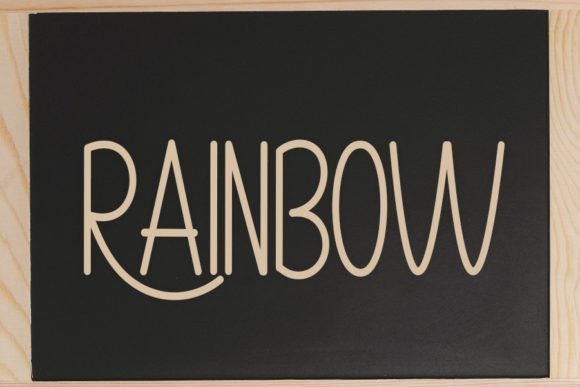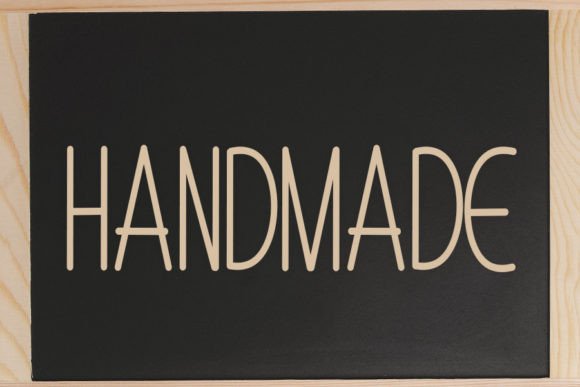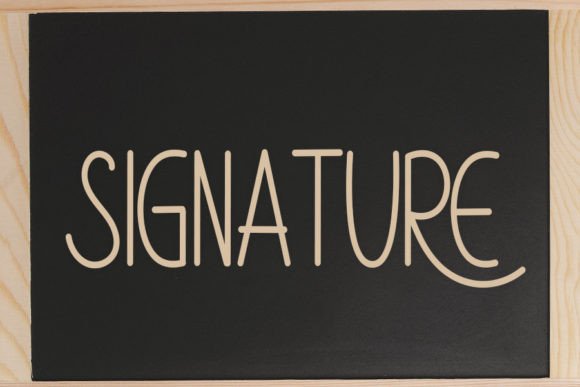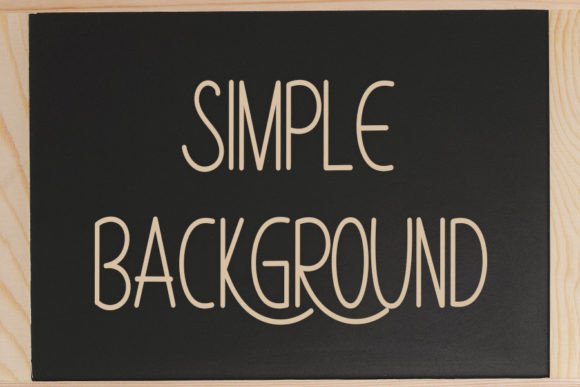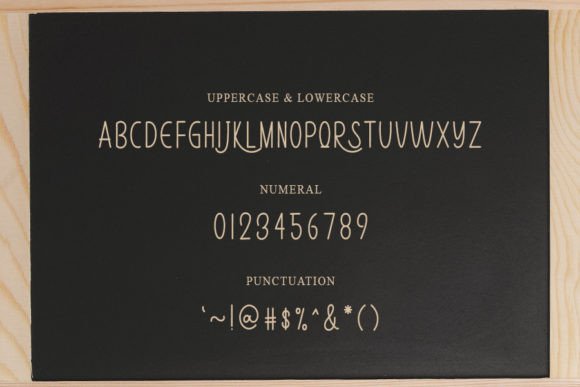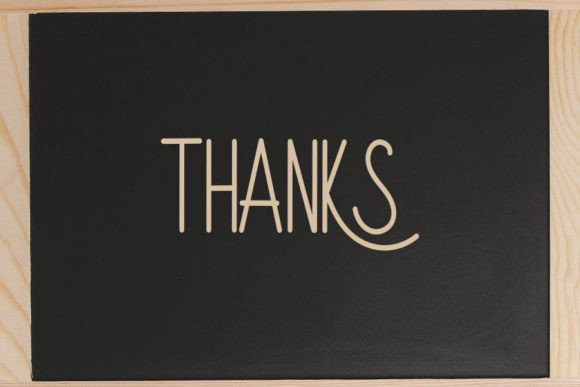
Introduction to Relaxii Font
Do you ever find yourself stuck in a creative rut, searching for the perfect design resource to bring your ideas to life? I know I have. One day, while working on a project, I stumbled upon the Relaxii Font, and it was love at first sight. Its elegant touch and timeless style instantly captured my attention, and I knew I had to share it with fellow designers.
The Relaxii Font is more than just a beautiful sans serif font – it’s a valuable asset for any designer looking to create stunning designs. With its incredibly distinct style, it’s perfect for a wide range of creative projects, from logos to brochures, and even websites with a transparent background.
Key Features of Relaxii Font
- Unique, elegant design suitable for various creative projects, including branding, packaging, and digital art.
- Transparent background, making it easy to layer over images or other design elements.
- Perfect for designers seeking a reliable design resource with a modern, minimalist aesthetic.
Honest Review: Relaxii Font
As a designer, I’m always on the lookout for high-quality design resources that can elevate my creative projects. Recently, I had the chance to try out the Relaxii Font, and I’m excited to share my honest review with you.
- Clean and minimalist design: The Relaxii Font features a clean and minimalist design that’s perfect for modern creative projects.
- High-quality typography: The font is incredibly legible and looks great on both digital and print materials.
- Transparent background: The font has a transparent background, which can be a bit tricky to work with if you’re not familiar with using layer styles in your design software.
- Limited character set: The Relaxii Font has a relatively small character set, which may not be suitable for projects that require a wide range of characters.
Overall, I’m really impressed with the Relaxii Font. While it may have some limitations, its clean design and high-quality typography make it a great addition to any designer’s toolkit. If you’re looking for a reliable free font to add some modern flair to your creative project, the Relaxii Font is definitely worth checking out.
Tips for Getting the Most Out of Relaxii Font
Relaxii Font is a versatile design resource that can be used in a variety of creative projects. To get the most out of it, consider the following tips:
Use Relaxii Font on a transparent background to create a modern and sleek look.
Experiment with different font sizes and styles to add visual interest to your design project.
Combine Relaxii Font with other design elements, such as images and graphics, to create a unique and engaging visual identity.
Is the Relaxii Font suitable for use in print design?
Yes, the Relaxii Font is designed to be high-quality and versatile, making it suitable for use in print design. However, please note that the font’s legibility may vary depending on the size and resolution of the print. It’s always a good idea to test the font in different sizes and resolutions before finalizing your design.